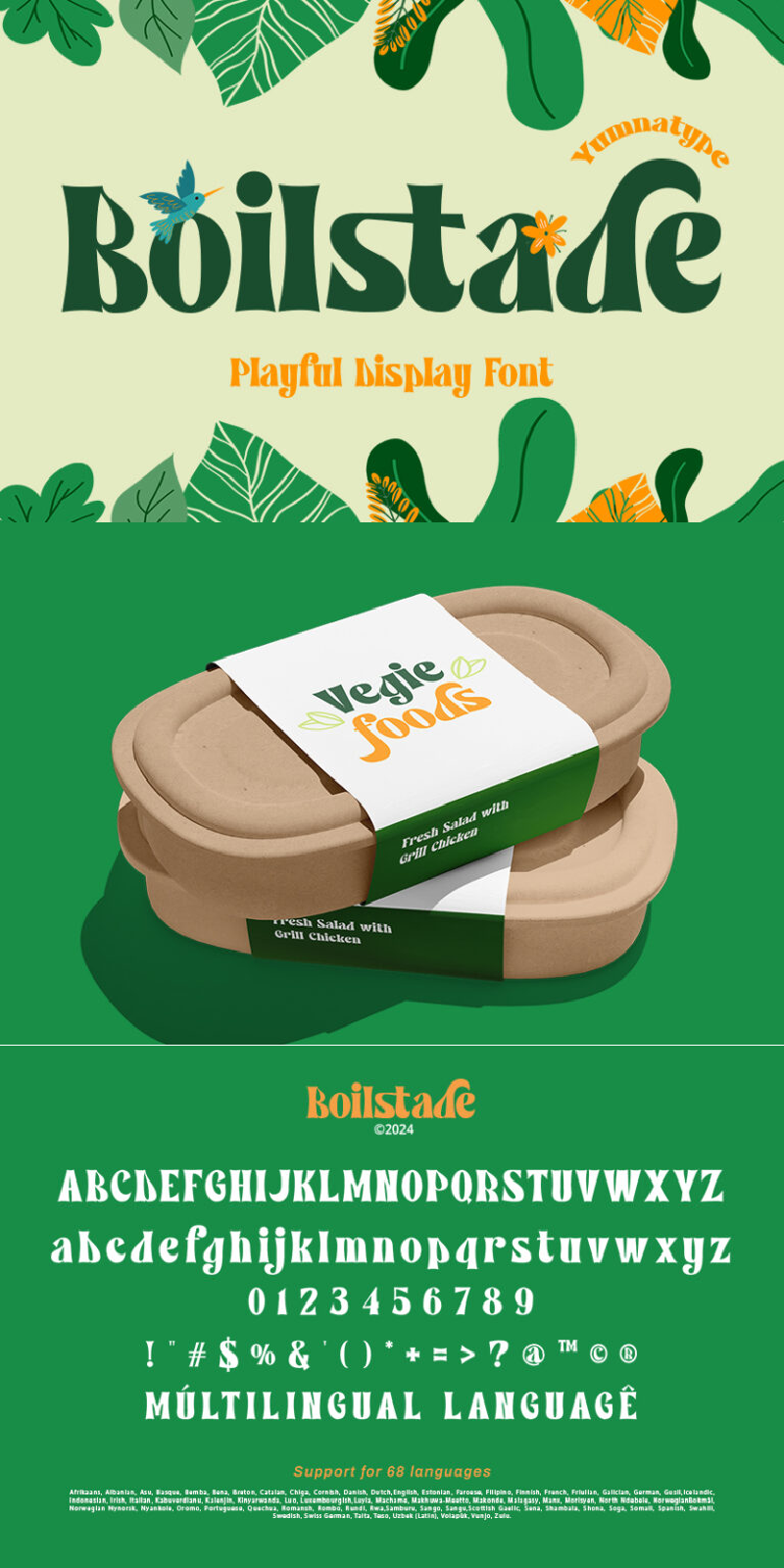
Boilstade Font
About Boilstade
Boilstade is a lively display font designed to bring a playful energy to your projects. Made in quite thick weight, Boilstade ensures your text stands out with a bold and captivating presence.The font’s playful style is highlighted by its rounded shapes, giving each character a friendly feel.
One of the defining characteristics of Boilstade is its quite visible contrast, which adds depth and dimension to your words. Adding to its unique charm, Boilstade design in unequal outlines, giving each letter a slightly irregular and handcrafted look. In addition, enjoy the features here.
Boilstade fits in headlines, logos, posters, flyers, branding materials, print media, editorial layouts, and many more designs. Find out more ways to use this font by taking a look at the font preview.